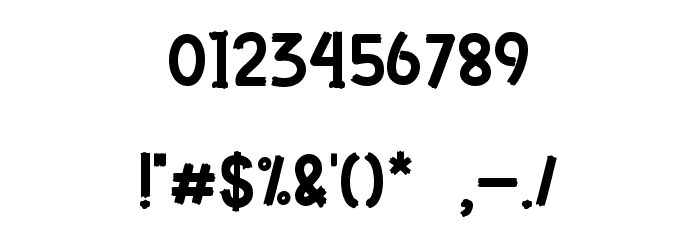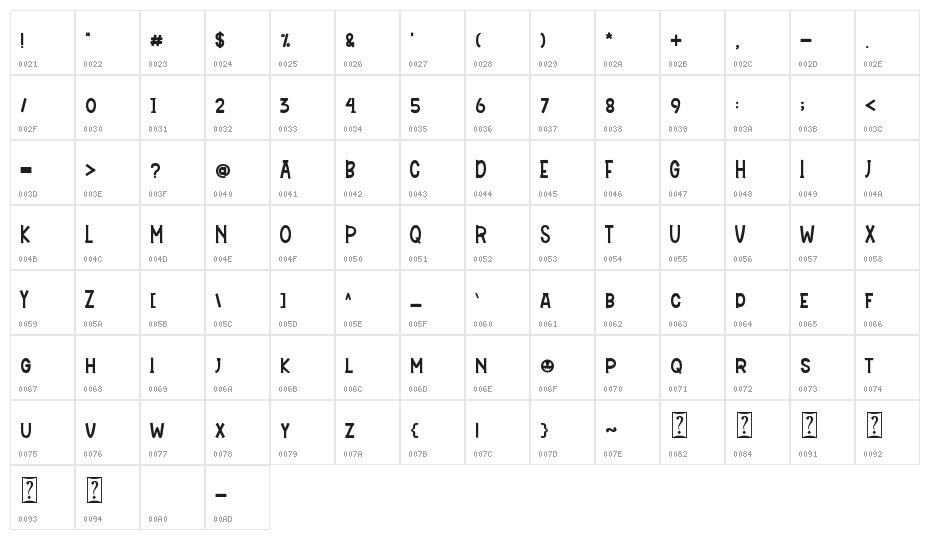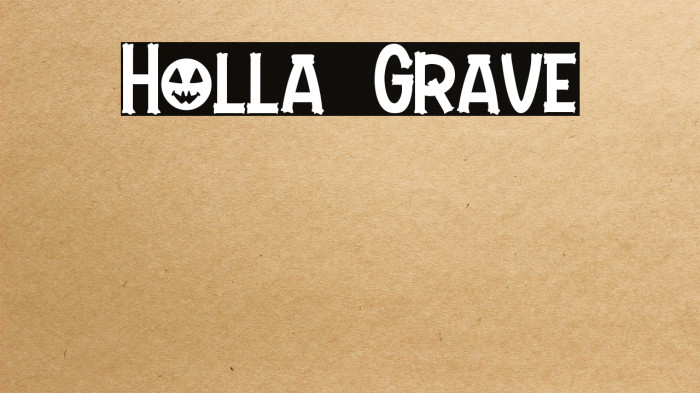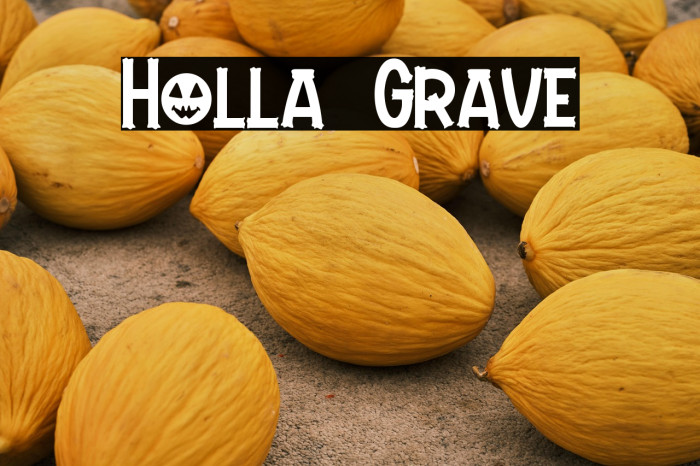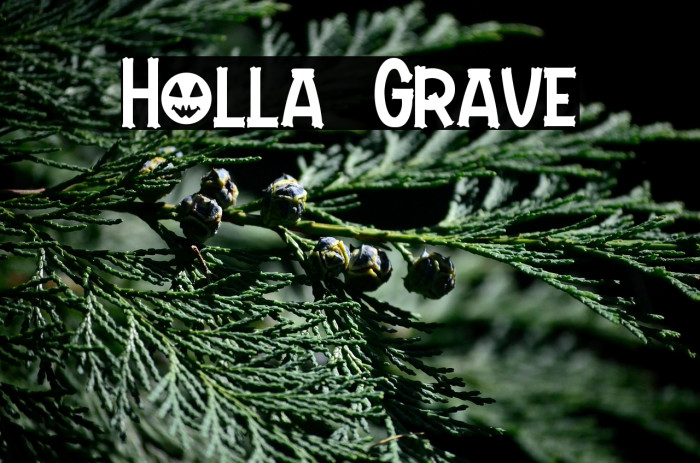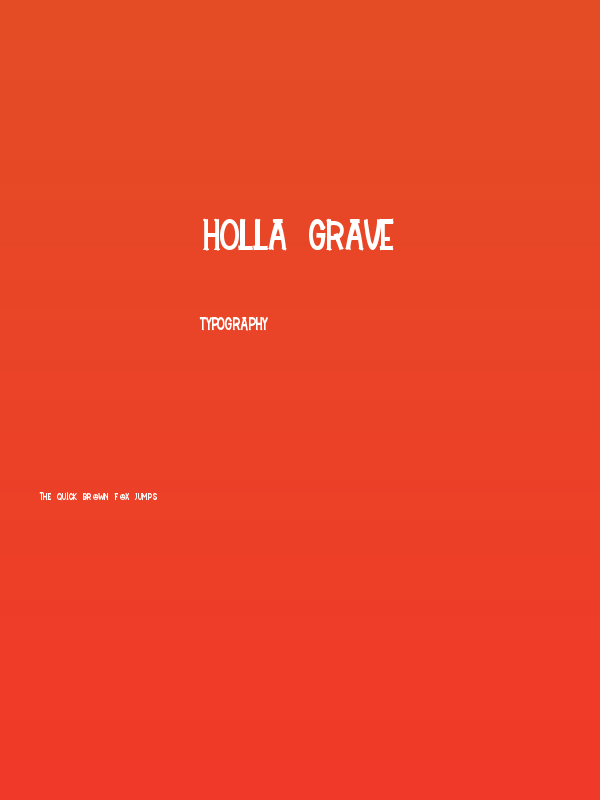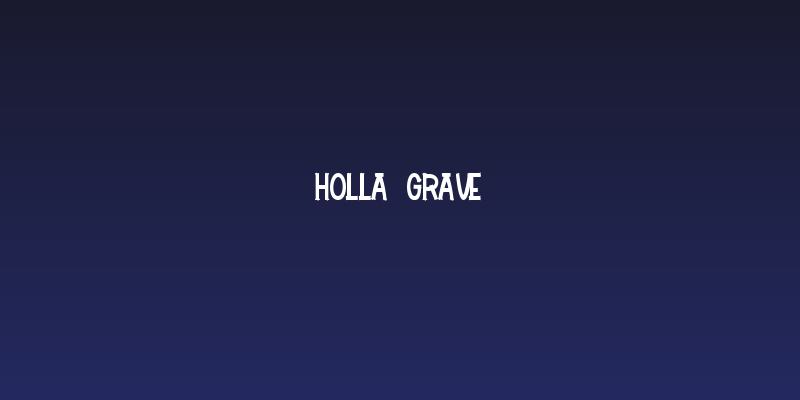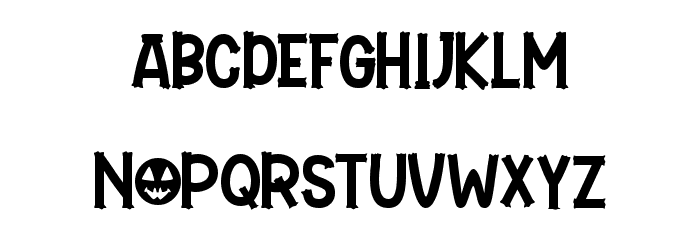
Holla Grave Font
Holla Grave Description
This font features a playful and spooky design, perfect for Halloween-themed projects. The characters have a jagged, uneven appearance, reminiscent of carved pumpkins or haunted house decorations. The uppercase letters are bold and slightly condensed, with unique cutouts and embellishments that add to the eerie vibe. The numbers and special characters maintain this theme, with quirky details that enhance the overall spooky aesthetic. This font is ideal for creating eye-catching headlines, posters, or invitations for Halloween events.
| Proposed Projects | Ideal for Halloween posters, party invitations, themed event signage, and spooky social media graphics. |